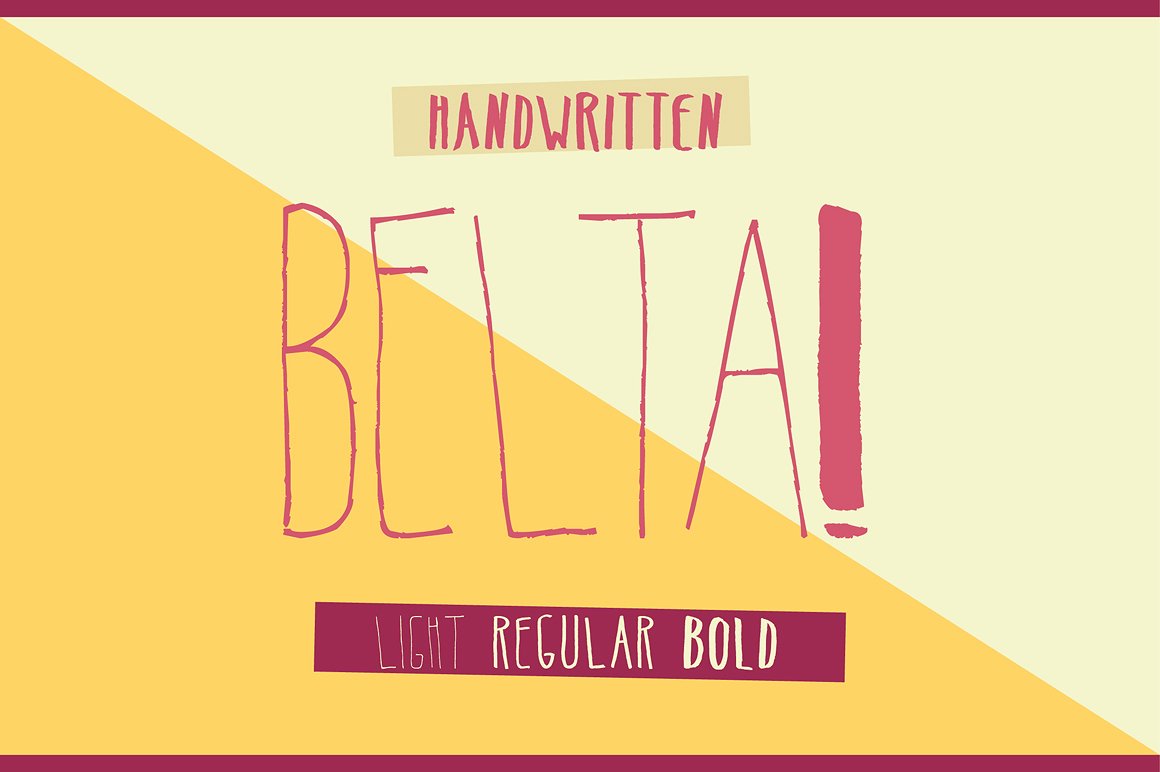
The Belta Font: A Stunning and Fun Addition to Your Design Arsenal
I’ll never forget the time I was working on a project for a client who needed a font that was both playful and sophisticated. I had spent hours scouring the internet for the perfect font, but nothing seemed quite right. That was until I stumbled upon the Belta font. This stunning and fun all-caps handwritten font has since become a go-to in my design toolkit, and I’m excited to share it with you.
An Honest Review of Belta Font
So, what makes Belta font so special? Let’s dive into the good stuff and explore some of its quirks.
What I Love About Belta Font
- ✨ Unique and eye-catching design: Belta font has a distinctive, handcrafted look that’s perfect for making a statement.
- ✅ Versatility: This font works well in a wide range of designs, from playful and informal to more sophisticated and elegant.
- 💫 Easy to read: Despite its playful nature, Belta font is surprisingly easy to read, even at smaller sizes.
While Belta font is an excellent addition to any design project, there are a few things to keep in mind:
- ⚠️ All-caps only: As an all-caps font, Belta may not be the best choice for body text or longer blocks of text.
- 🤔 Limited OpenType features: While Belta font does offer some OpenType features, it may not have as many as some other fonts on the market.
The Story Behind Belta Font
Belta font was designed with the intention of creating a unique and eye-catching font that would add a touch of personality to any design project. The designer, inspired by the beauty of handwritten letters, set out to create a font that was both fun and sophisticated.
| Font Name | Belta Font |
| Author | antipixel |
Q: What is Belta font best used for?
A: Belta font is perfect for use in displays and headlines, where a playful and eye-catching font is needed.
Q: Is Belta font easy to read?
A: Yes, despite its playful nature, Belta font is surprisingly easy to read, even at smaller sizes.
Q: Can I use Belta font for body text?
A: While Belta font can be used for body text, it may not be the best choice due to its all-caps design and limited OpenType features.